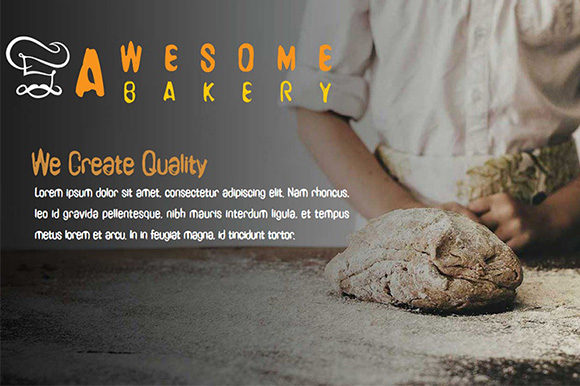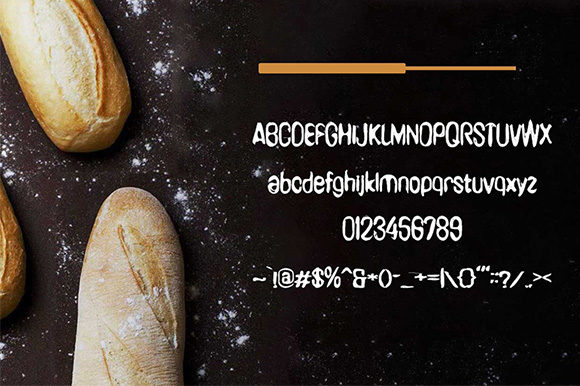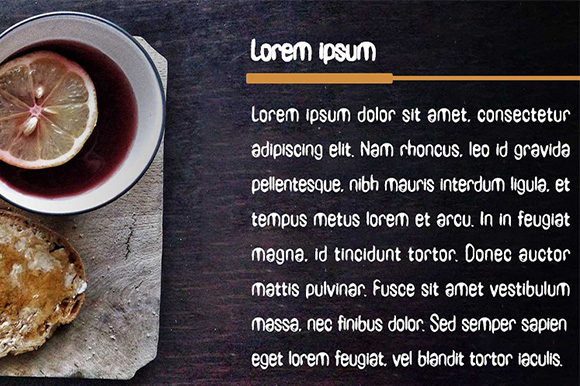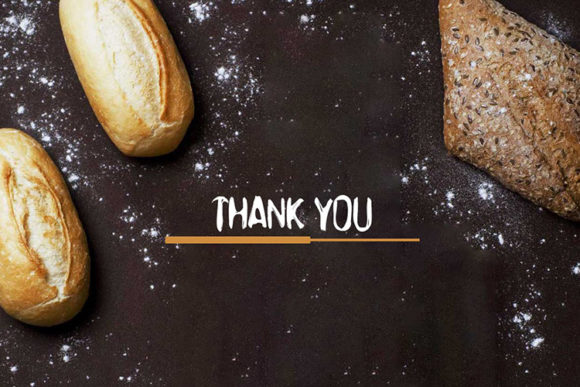
Introduction to Dulimarlanda Font
Dulimarlanda is a great display font.
Clean and a little bit quirky, this font is the perfect fit for all of your logos, branding, social media, and crafty DIY projects .
Dulimarlanda Font offers exceptional quality and versatility, making it a valuable addition to your design toolkit. Whether you’re creating for personal projects or commercial use, Dulimarlanda Font delivers professional results.